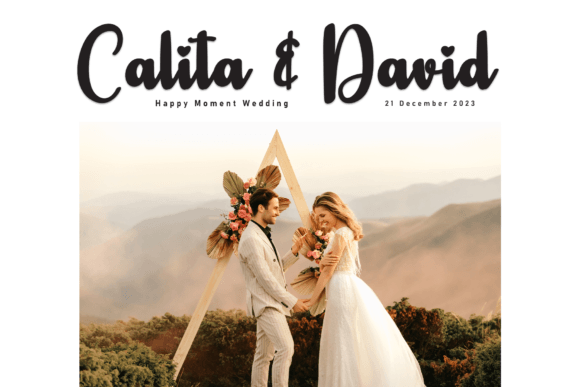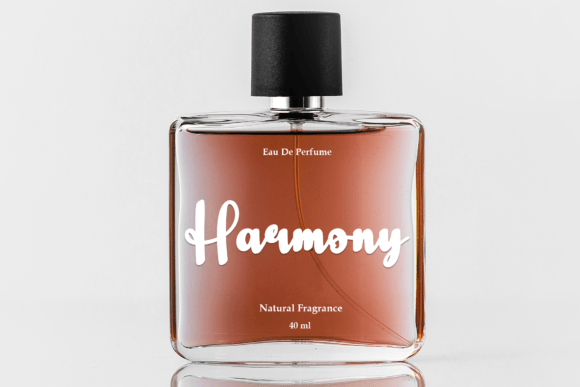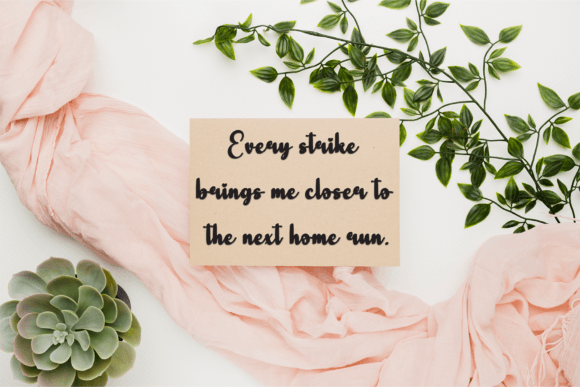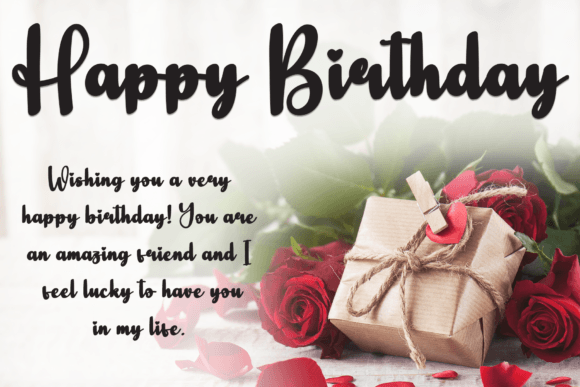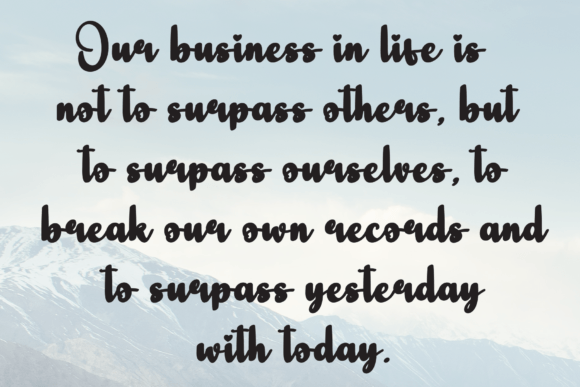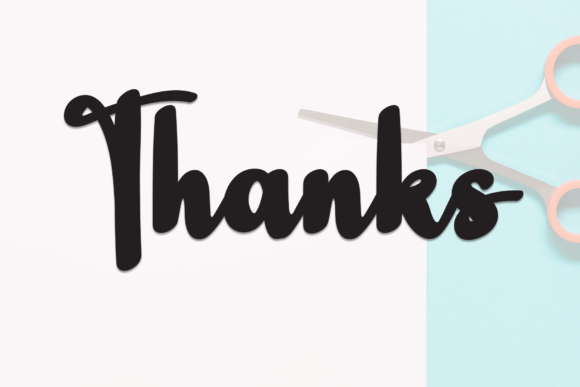
Introducing Cutting Font: The Sweet and Friendly Handwritten Display Font
Are you looking for a font that can add a touch of fun and whimsy to your designs? Look no further than Cutting Font, a sweet and friendly handwritten display font that’s perfect for a variety of creative projects. In this article, we’ll take a closer look at Cutting Font, its features, and how you can use it to elevate your designs.
What is Cutting Font?
Cutting Font is a beautiful, handmade display font that’s designed to bring a smile to your face. It’s a cute and fun font that’s ideal for writing wedding invitations, cards, or any other design that might need a fun touch. The font is carefully crafted to have a friendly and approachable feel, making it perfect for designers and crafters who want to add a personal touch to their work.
Features of Cutting Font
So, what makes Cutting Font so special? Here are some of its key features:
- Handwritten style: Cutting Font has a beautiful, handwritten style that’s perfect for adding a personal touch to your designs.
- Cute and fun: The font is designed to be cute and fun, making it ideal for designs that need a playful touch.
- Display font: Cutting Font is a display font, which means it’s perfect for headlines, titles, and other prominent text elements.
- Easy to read: Despite its playful style, Cutting Font is easy to read, making it perfect for body text as well as headlines.
Use Cases for Cutting Font
So, what can you use Cutting Font for? The possibilities are endless, but here are some ideas to get you started:
- Wedding invitations: Cutting Font is perfect for writing beautiful, handmade-style wedding invitations that will make your clients swoon.
- Cards and stationery: The font is also great for creating fun and playful cards and stationery for special occasions.
- Social media graphics: Cutting Font can add a touch of personality to your social media graphics, making them stand out from the crowd.
- Branding and packaging: If you’re looking for a font that can add a touch of whimsy to your branding and packaging, Cutting Font is a great choice.
Tips for Using Cutting Font
Here are some tips for getting the most out of Cutting Font:
- Use it sparingly: Because Cutting Font is a display font, it’s best used sparingly. Use it for headlines and titles, and pair it with a simpler font for body text.
- Experiment with colors: Cutting Font looks great in a variety of colors, so don’t be afraid to experiment and find the perfect hue for your design.
- Pair it with other fonts: Cutting Font pairs well with a variety of other fonts, so try pairing it with some of your favorite fonts to create a unique look.
In conclusion, Cutting Font is a sweet and friendly handwritten display font that’s perfect for designers and crafters who want to add a touch of fun and whimsy to their designs. With its cute and playful style, easy readability, and versatility, Cutting Font is a great choice for a wide range of creative projects. Whether you’re creating wedding invitations, social media graphics, or branding and packaging, Cutting Font is sure to bring a smile to your face and make your designs stand out from the crowd.